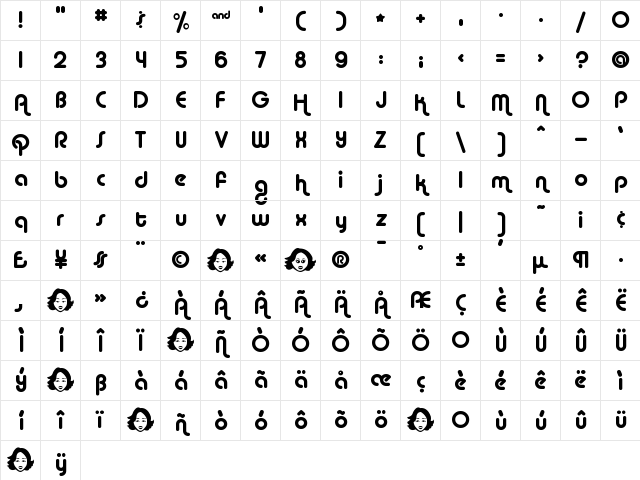
Alba Regular
Alba Family
Complete Alba Regular glyph index. Displaying only characters natively supported by Alba Regular font.
Design Context for Alba
Alba is a composed and adaptable typeface that performs quietly and consistently across a wide range of design contexts.